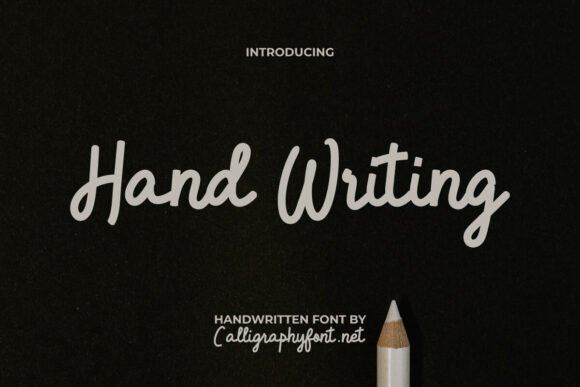
Bring Your Designs to Life with Hand Writing Font
Imagine you’re brainstorming ideas for a new campaign, and suddenly, a spark of creativity hits you. You envision a beautiful, eye-catching logo that stands out from the crowd. The kind of logo that makes people stop and take notice. For designers like you, finding the perfect font can be the difference between a great design and an amazing one.
That’s where Hand Writing Font comes in – a Rounded Bold stylish handwritten font designed to add a touch of personality to your creative projects. With its perfectly round thick brush strokes, this font is sure to captivate your audience and leave a lasting impression. Whether you’re working on advertisements, billboards, or business cards, Hand Writing Font is the perfect choice to elevate your designs and make them truly unforgettable.
Key Features of Hand Writing Font
- Unique Characteristics: Hand Writing Font features a unique, cursive script with subtle flourishes and connections between letters, giving it a personal and handwritten feel
Hand Writing Font Review
As a designer, I was excited to try out the Hand Writing Font. Here’s my honest review:
- Cursive feel: The font has a nice, flowing cursive feel that’s perfect for handwritten or signature-style elements.
- Expressive variations: The font comes with a range of expressive variations, from casual to formal, that can add a lot of character to your designs.
- Good legibility: Despite its cursive nature, the font is still relatively easy to read, making it a great choice for body text or headlines.
- Limited flexibility: While the font has a range of variations, it’s not super flexible in terms of weight or width adjustments.
- Not ideal for body text: While the font is legible, it’s still a bit too ornate for large blocks of body text.
- No Cyrillic support: Unfortunately, the font doesn’t include Cyrillic characters, which can be a limitation for designers working with non-Latin languages.
Overall, I think the Hand Writing Font is a solid choice for designers who want to add a personal touch to their work. While it has some limitations, its expressive variations and cursive feel make it a great choice for handwritten or signature-style elements. Just be aware of its limitations, and use it judiciously in your designs.
Tips for Getting the Most Out of Hand Writing Font
Experiment with different font styles and sizes to achieve the desired look. Use hand writing font for titles, headings, and captions to add a personal touch. Combine hand writing font with other fonts to create a unique and eye-catching design.
Hand writing font is commonly used for:
- Creativity and imagination projects
- Personalized invitations and greeting cards
- Graphic design and visual arts
Alternatives to Hand Writing Font for Designers
1. Script Font
Script fonts are highly decorative and cursive fonts that mimic the look of handwriting. They are ideal for use in titles, headings, and other text elements where a touch of elegance is desired. Script fonts can be more complex and ornate than handwriting fonts, making them suitable for formal or luxury branding.
Comparison to Hand Writing Font: While both fonts aim to mimic handwriting, script fonts are often more elaborate and ornate, making them a better choice for formal or high-end designs. Handwriting fonts, on the other hand, tend to be more casual and versatile.